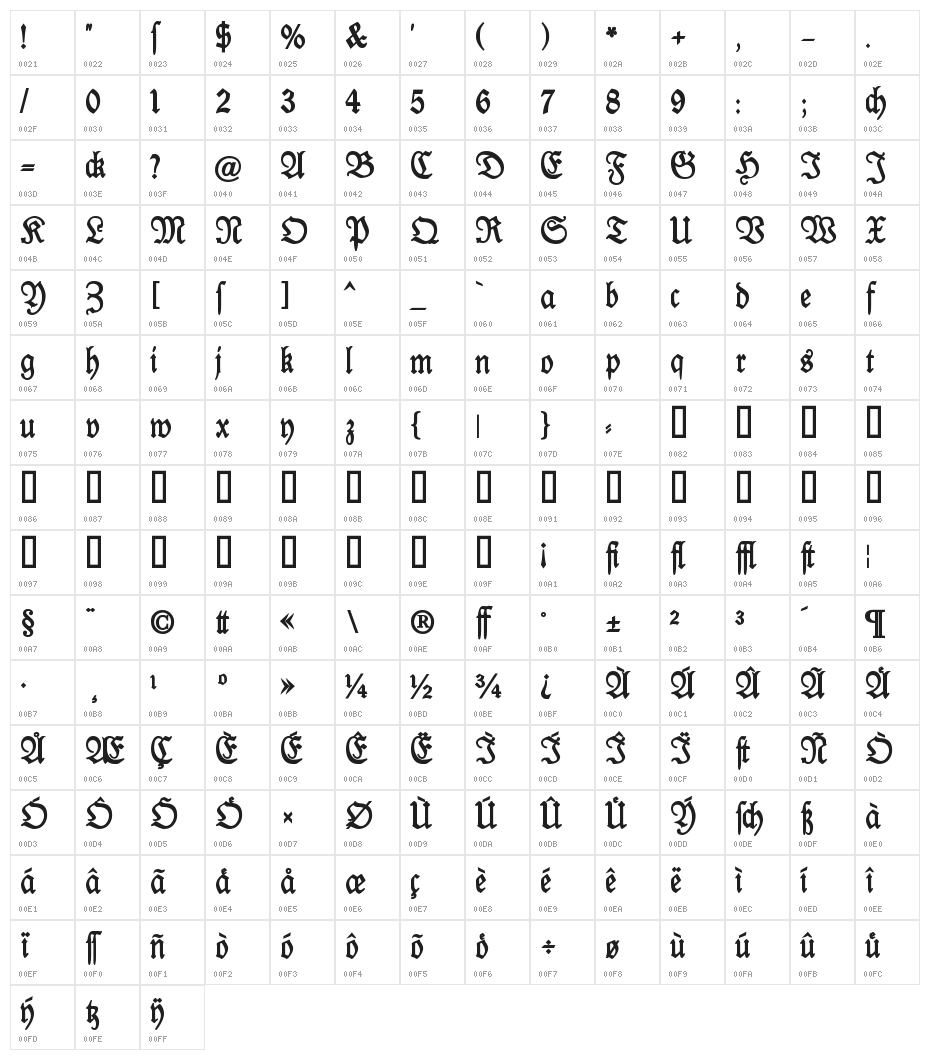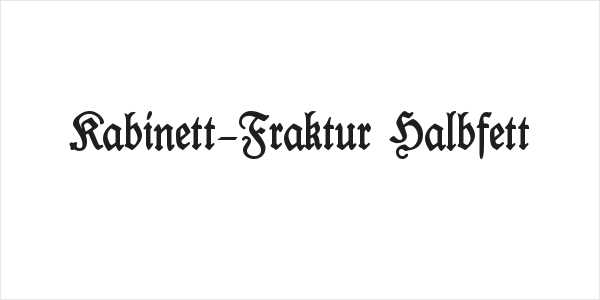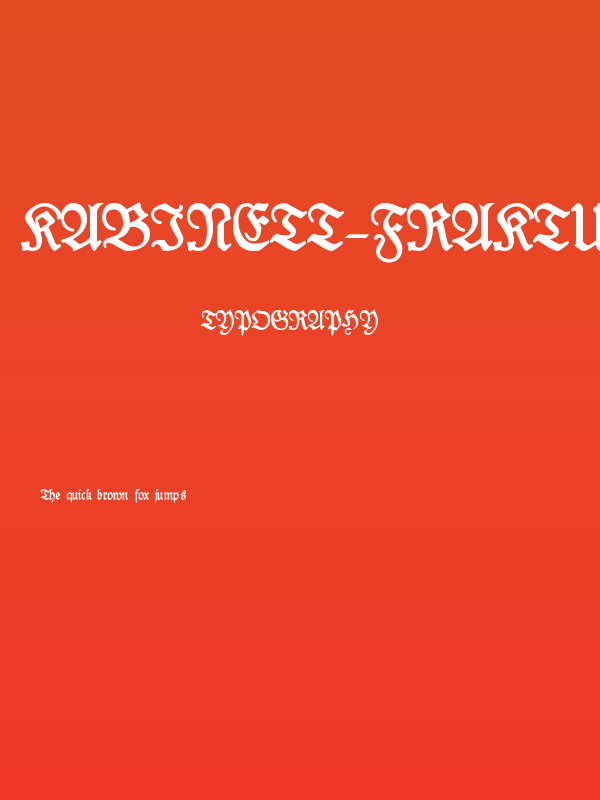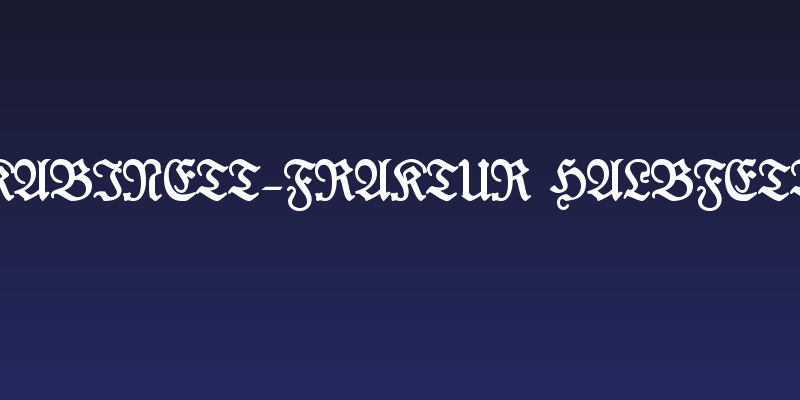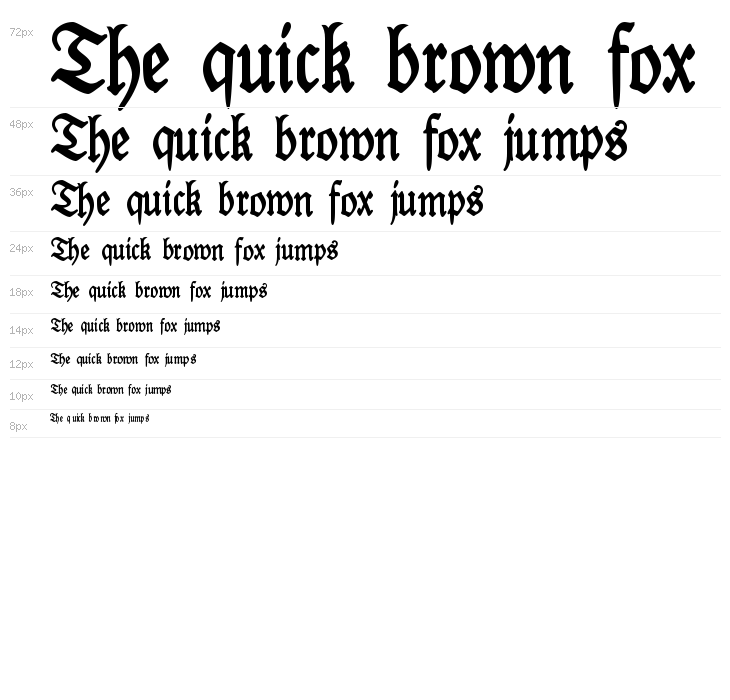
Kabinett-Fraktur Halbfett Font
Kabinett-Fraktur Halbfett Description
This font exhibits a traditional blackletter style, characterized by its intricate and ornate letterforms. The strokes are bold and angular, with sharp serifs and decorative elements that give it a historical and formal appearance. The uppercase letters are particularly elaborate, featuring flourishes and unique shapes that are reminiscent of medieval script. The lowercase letters maintain a consistent style, with a slightly more subdued design that complements the uppercase. The numerals and special characters are designed to match the overall aesthetic, ensuring a cohesive look across all text. This font is ideal for projects that require a touch of elegance and tradition, such as invitations, certificates, or branding for luxury products.
| Use Case | Headlines, Logos, Decorative text |
| Proposed Projects | Ideal for wedding invitations, certificates, historical documents, luxury branding, and decorative signage. |